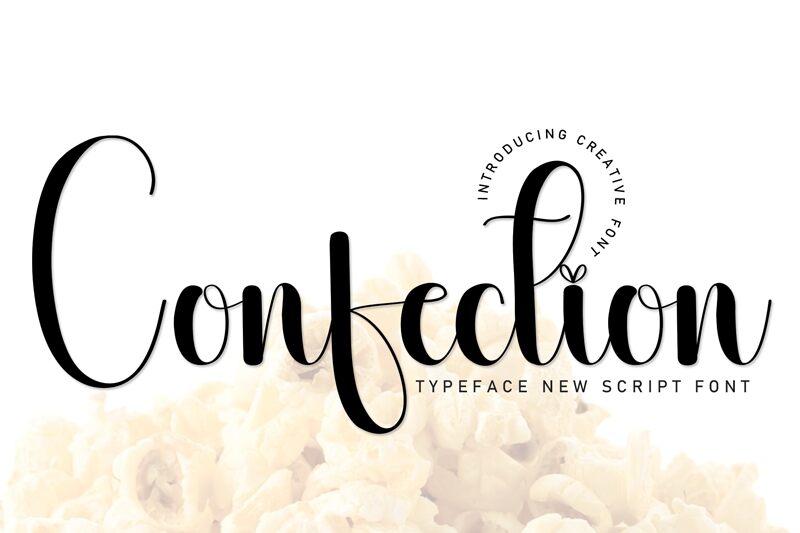
Confection
Confection font by Scratchones is a captivating calligraphy typeface that exudes elegance and charm. Its graceful, flowing curves and delicate strokes make it perfect for projects that require a touch of sophistication. This light font style adds an airy and romantic feel, ideal for wedding invitations, greeting cards, or branding materials where style and refinement are paramount.
Designed with versatility in mind, Confection font is excellent for both digital and print applications. Its unique blend of traditional calligraphy with modern aesthetics ensures it stands out in any design context.